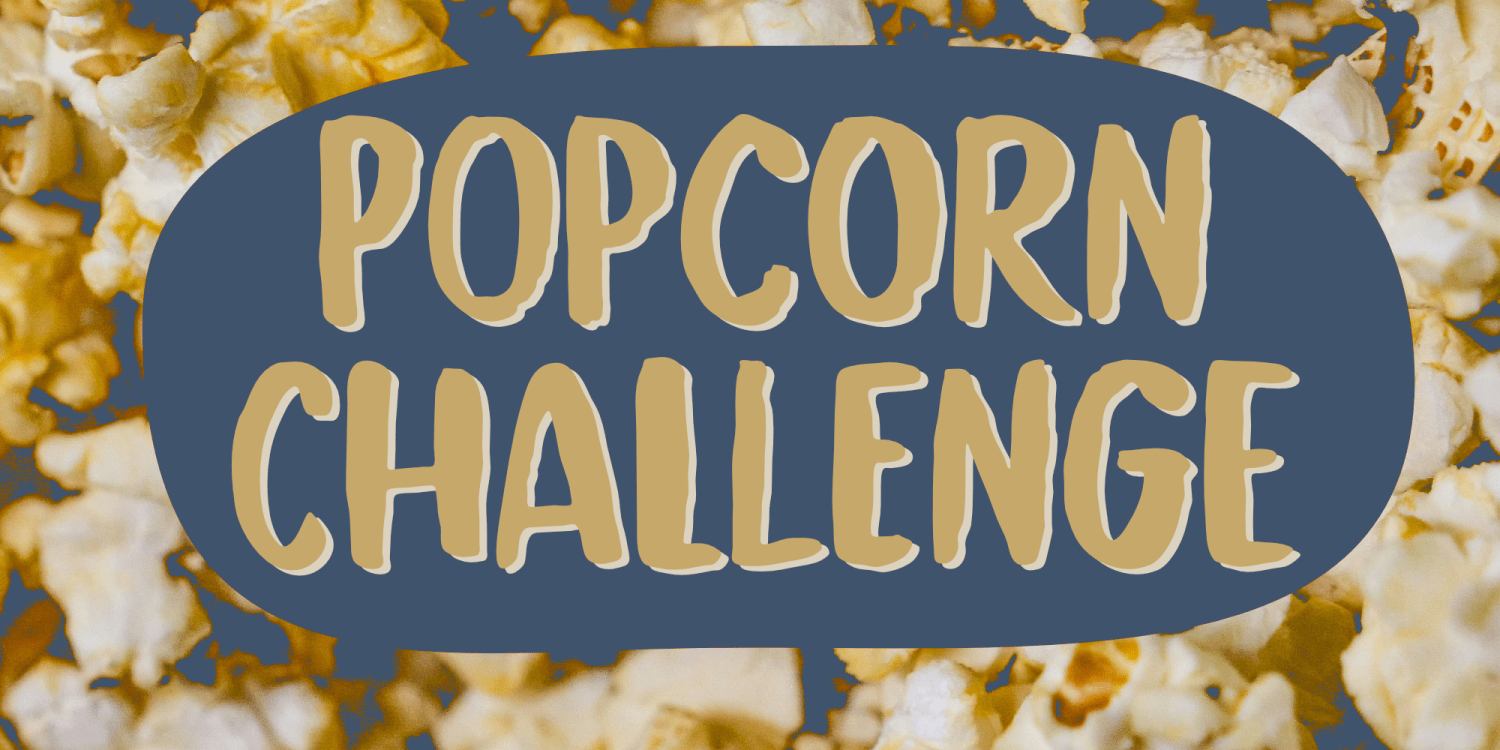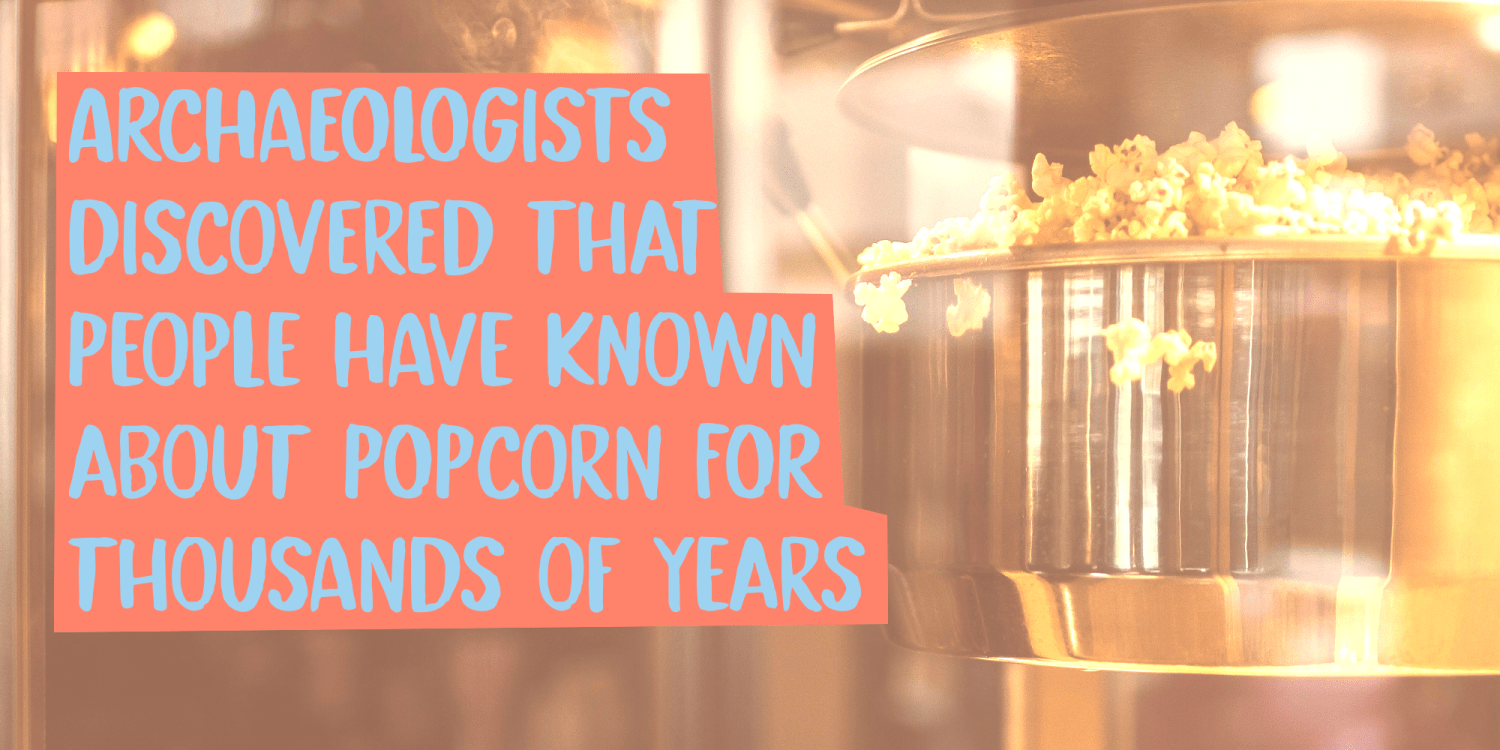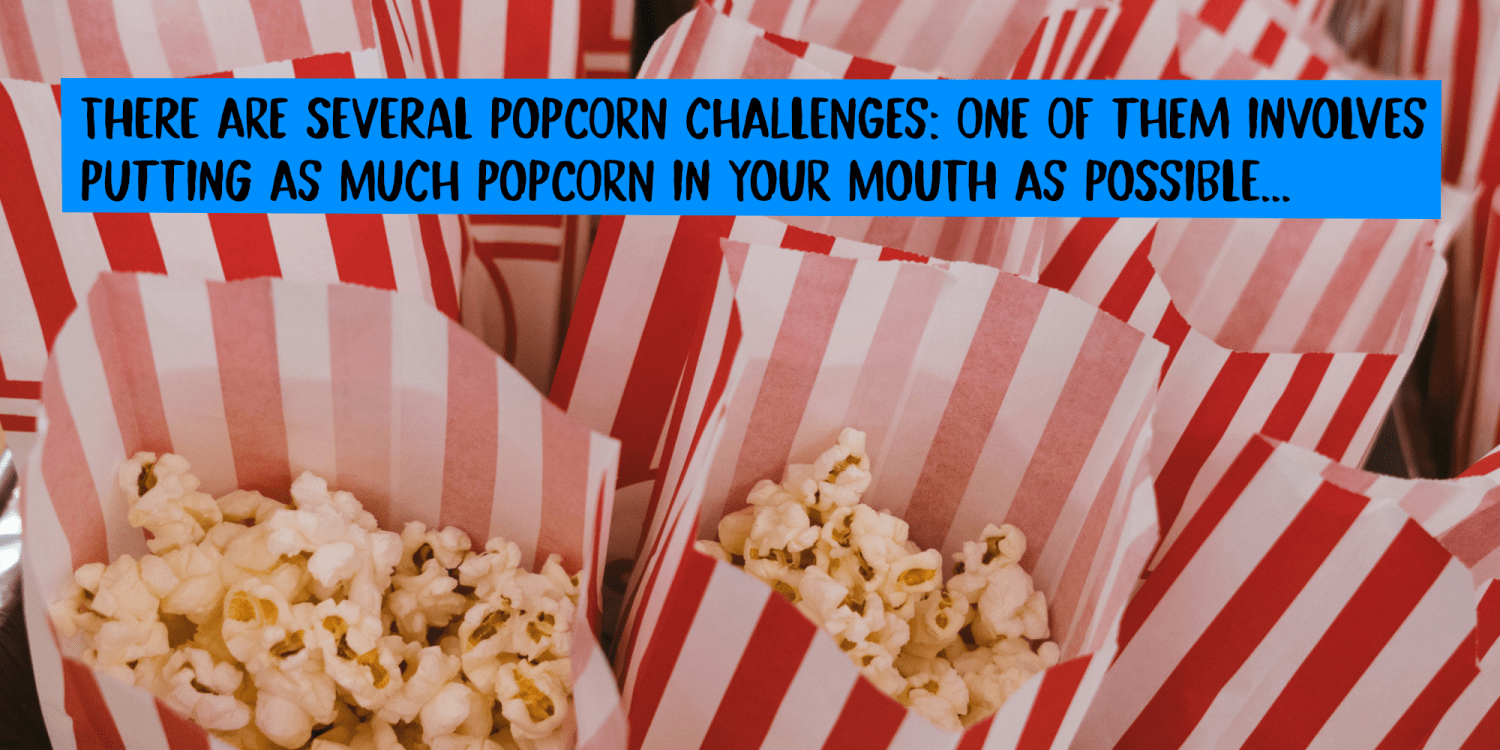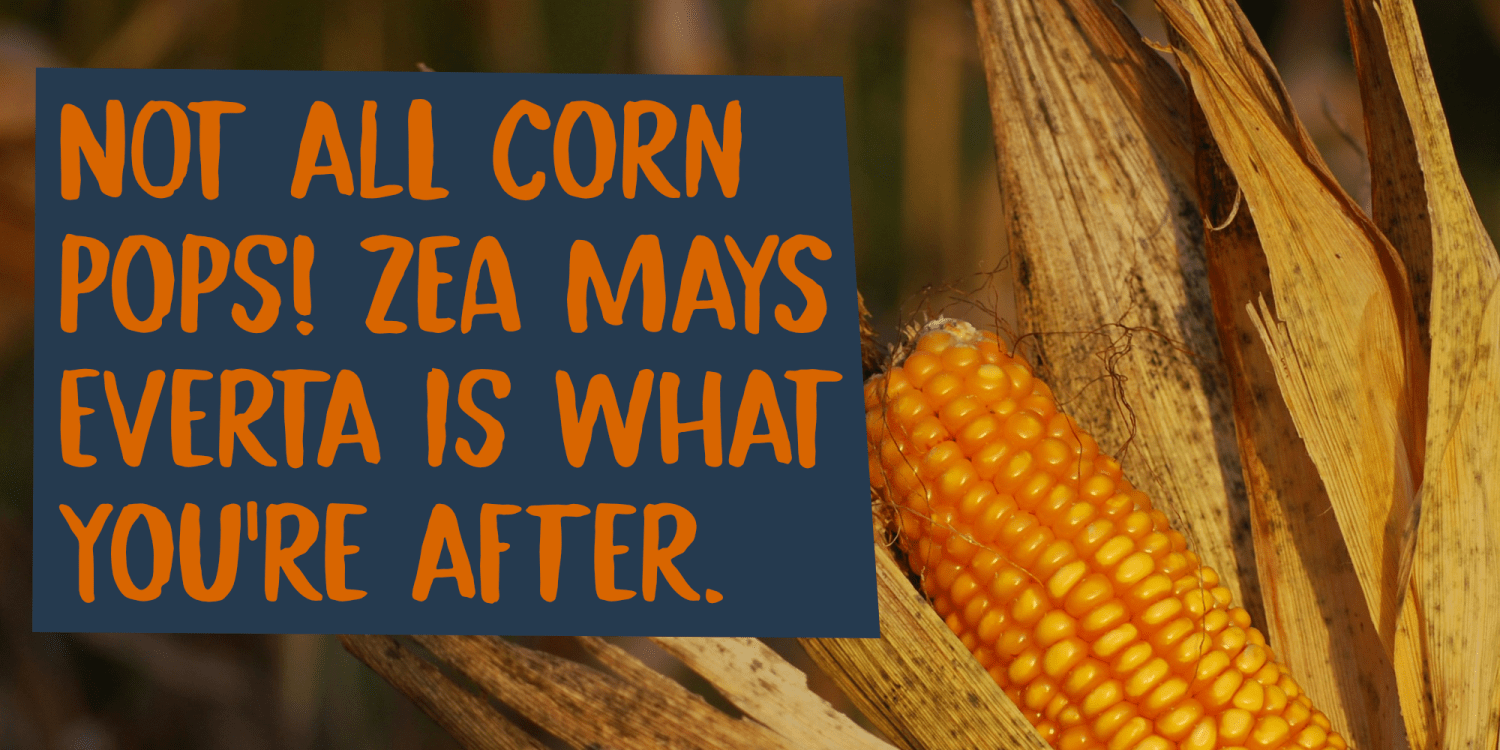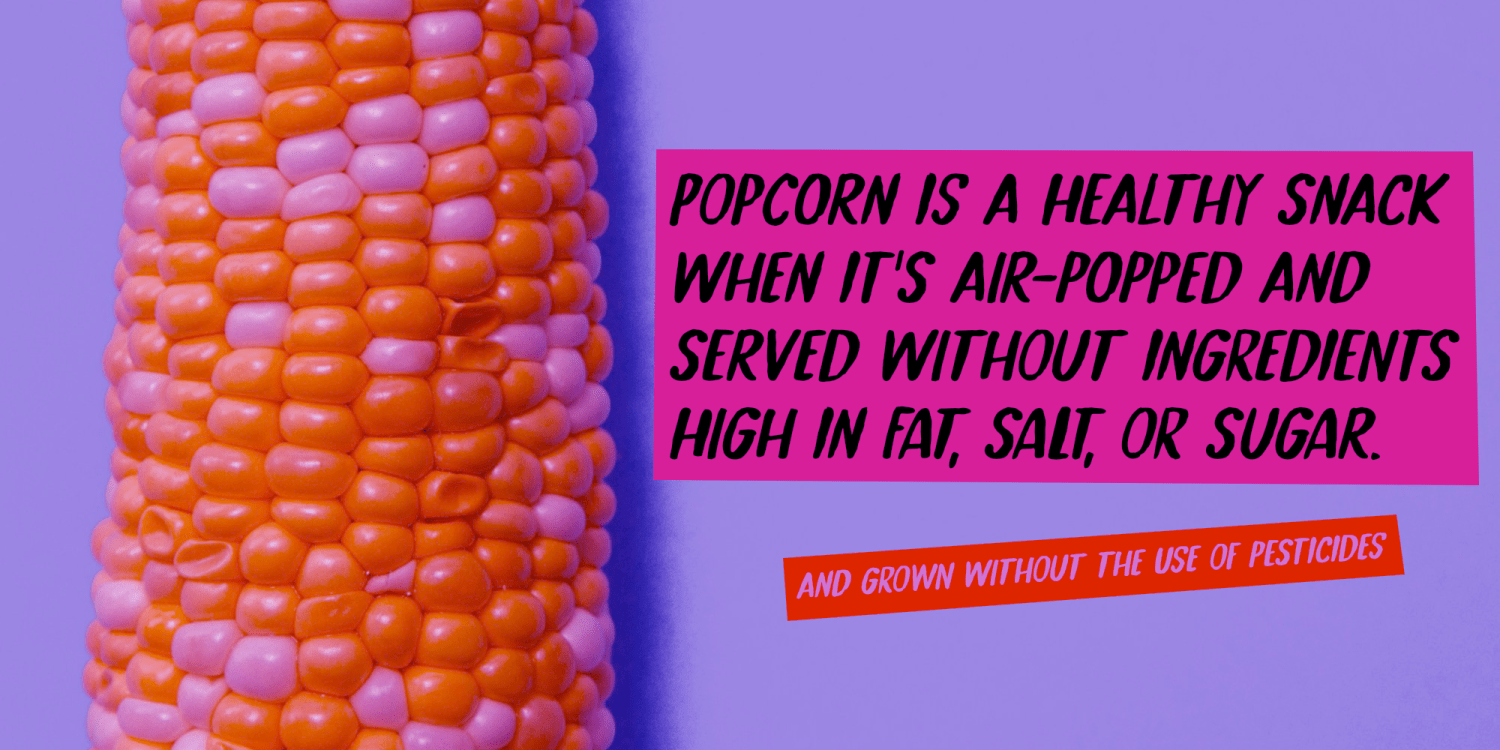
Popcorn Challenge
Popcorn Challenge is a font I made with a horse-hair brush and Chinese ink. It comes with extensive language support and a set of alternates for the lower case glyphs.
Popcorn Challenge by Hanoded